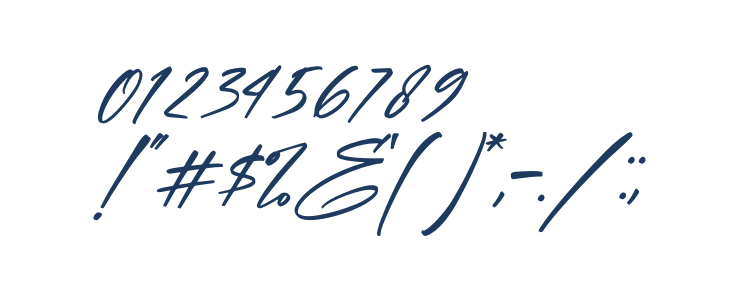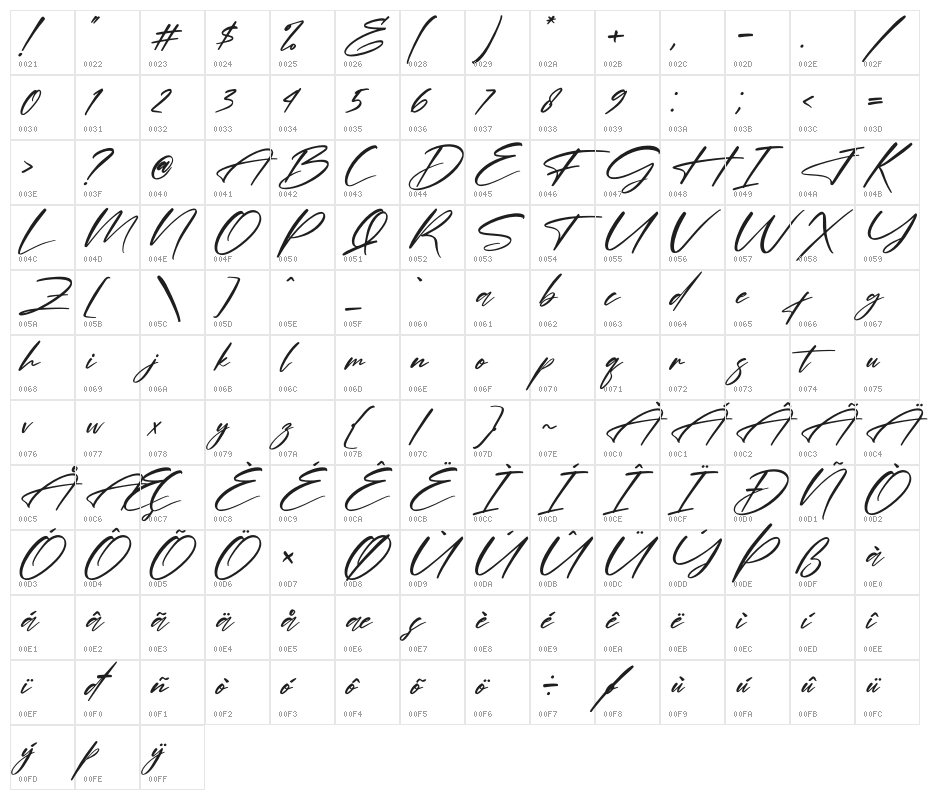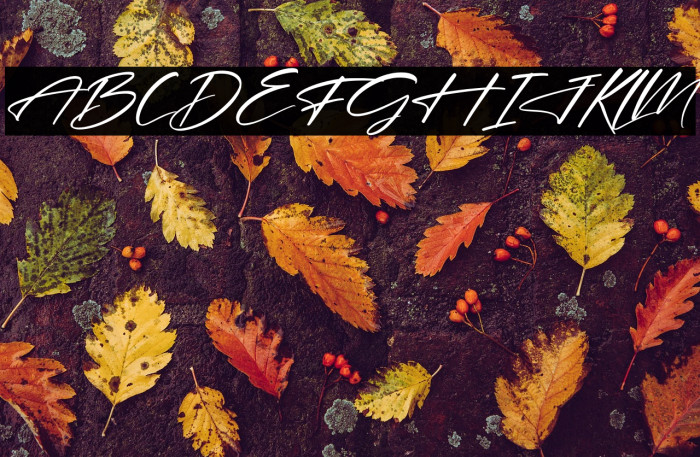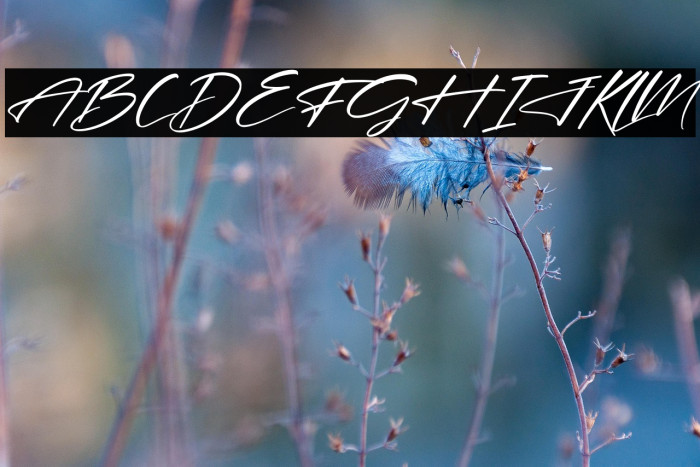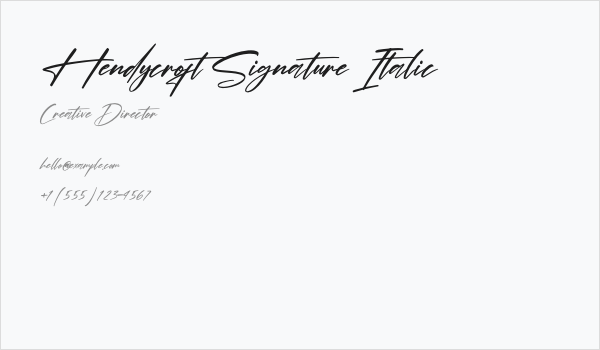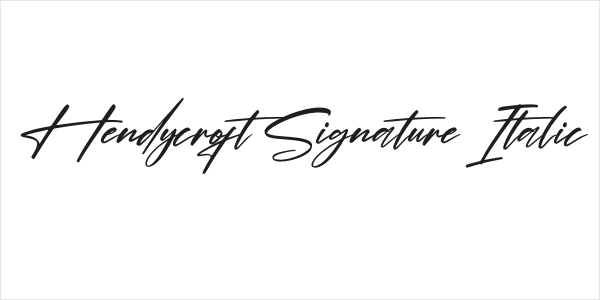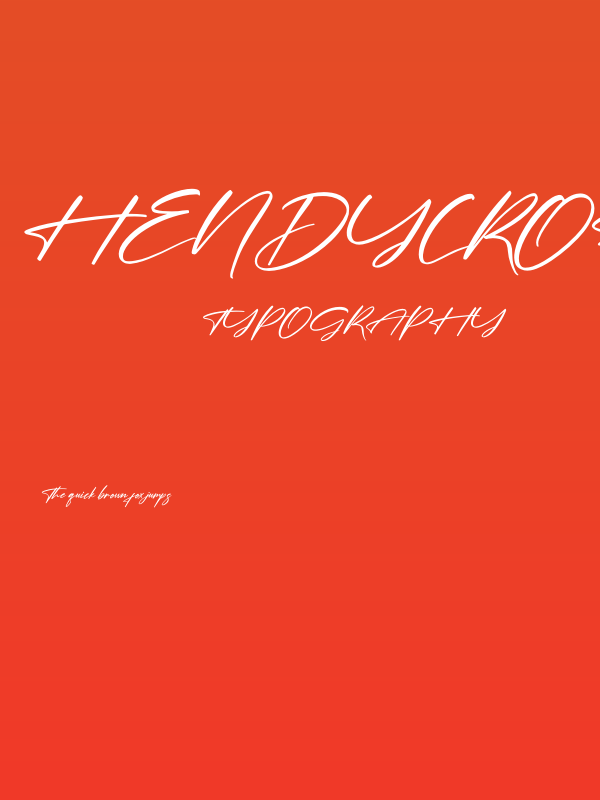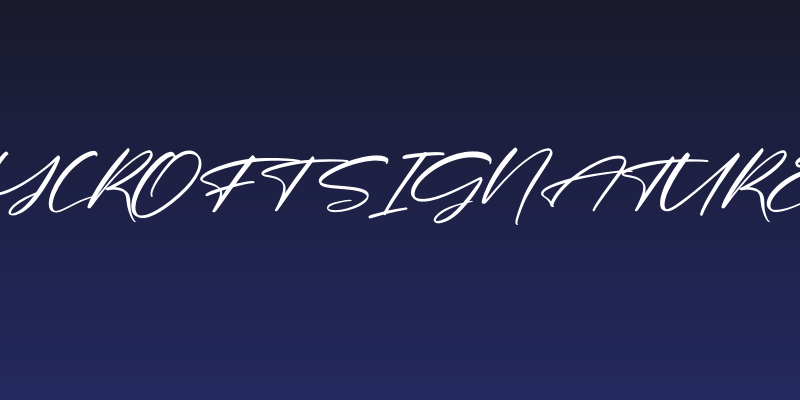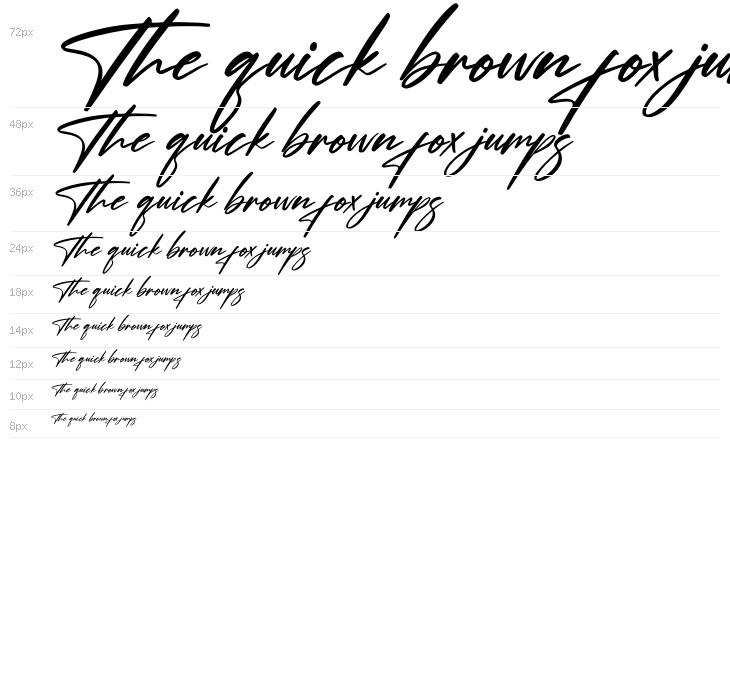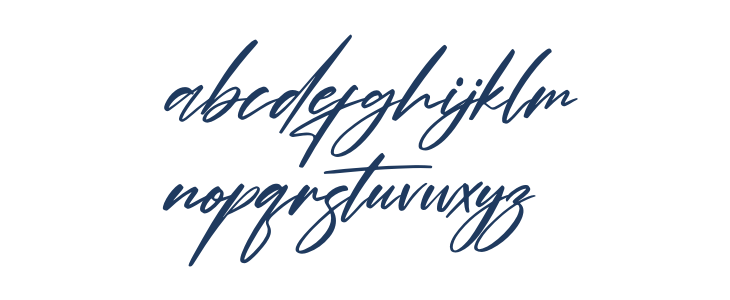
Hendycroft Signature Italic Font
Hendycroft Signature Italic Description
This font exudes a sophisticated and elegant handwritten style, characterized by its fluid and connected letterforms. The uppercase letters are tall and slender, with a slight slant that adds a dynamic and graceful touch. The lowercase letters are more pronounced, with sweeping curves and loops that enhance the script's flowing nature. The numerals are consistent with the overall style, maintaining the same slant and fluidity. Special characters are integrated seamlessly, ensuring a cohesive appearance throughout. This font is perfect for projects that require a personal and artistic touch, such as invitations, branding, and creative designs.
| Use Case | Logos, Invitations, Artistic Designs |
| Proposed Projects | Ideal for wedding invitations, personal branding, artistic designs, and elegant stationery. |